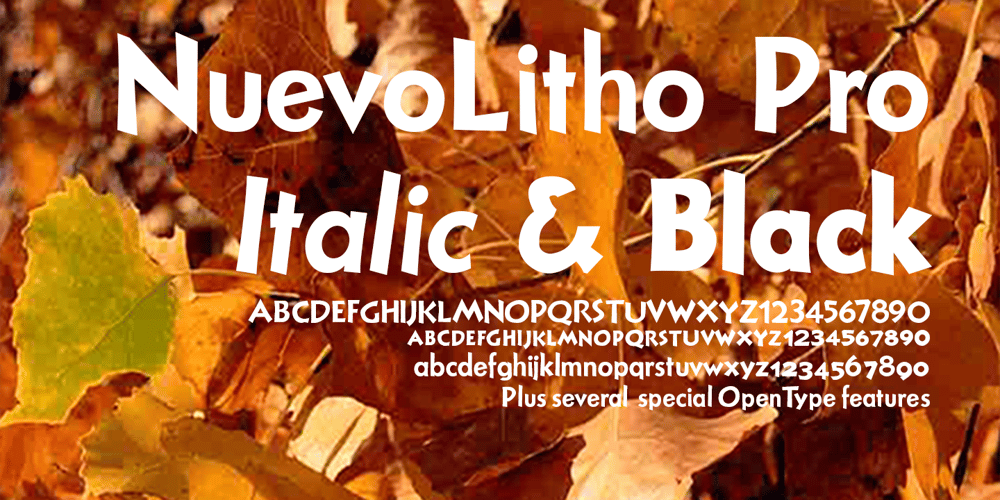
Nuevo Litho Font Family was designed by David Bergsland and published by Hackberry Font Foundry. Nuevo Litho contains 2 styles and family package options. NuevoLitho is my first successful font design. It was designed for use in the heads and subheads of my first book, “Printing in a Digital World” back in 1994. It’s a very loosened play on Lithos, Carol Twombly’s fashionable font of the period. However, I added a complete lowercase set, several special characters, and all the other fun stuff I do with my fonts.